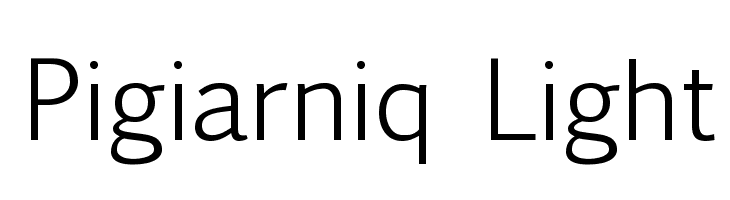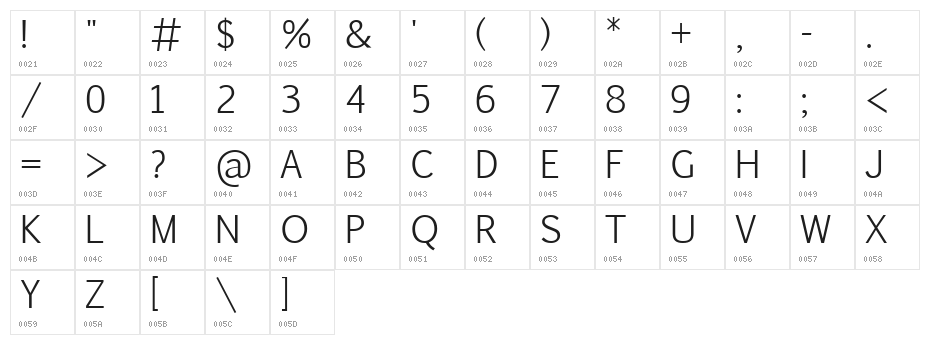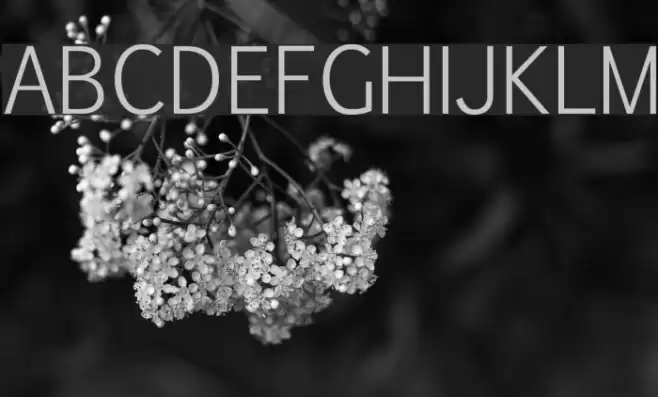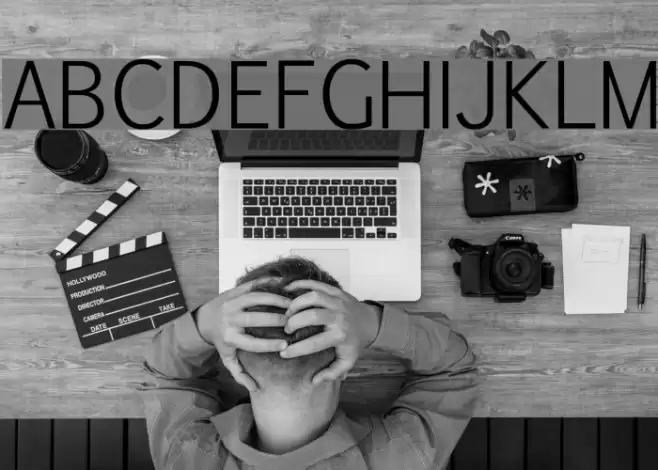
Pigiarniq Light Font
Pigiarniq Light Description
This font features a clean and modern sans-serif design, characterized by its light weight and minimalistic style. The characters are well-proportioned with a consistent stroke width, providing a harmonious and balanced appearance. The uppercase letters are slightly taller than the lowercase, offering a clear distinction between the two. The numerals are straightforward and align well with the overall aesthetic, ensuring readability. Special characters are designed with simplicity in mind, maintaining the font's cohesive look. This font is ideal for projects that require a contemporary and uncluttered typeface.
| Proposed Projects | Ideal for web design, branding, corporate materials, and minimalist graphic design projects. |